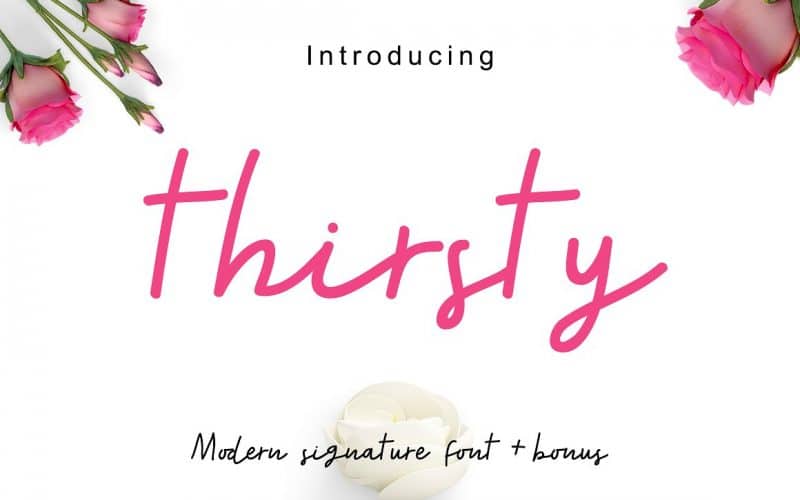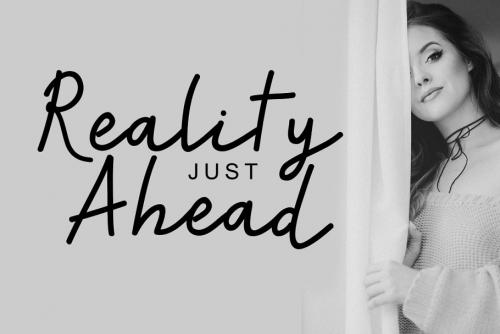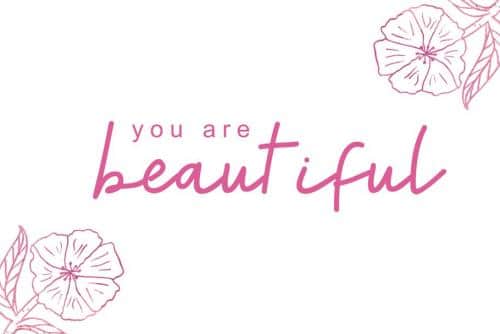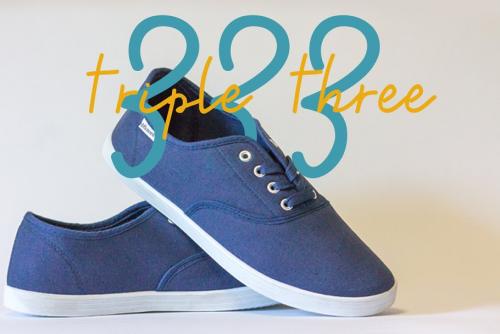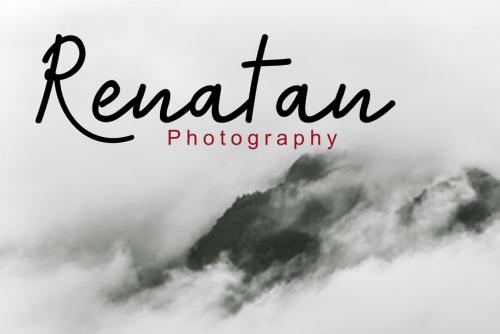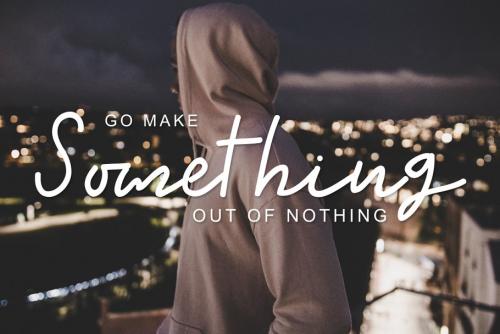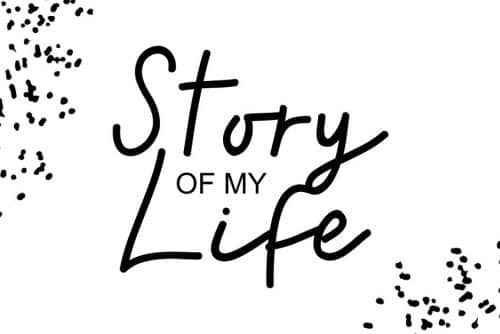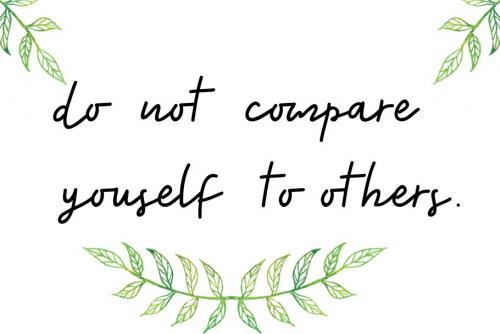
Thirst Script New fresh & modern script with handmade calligraphy style + Illustrations, decorative characters and dance base line!
So beautiful are invitations like greeting cards, branding material, business cards, quotes, posters, and more !!